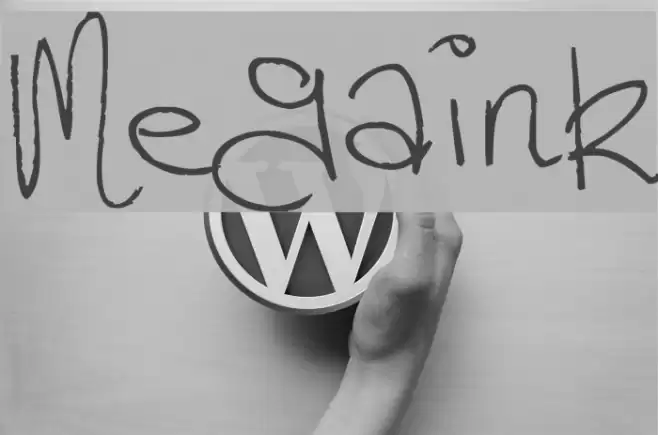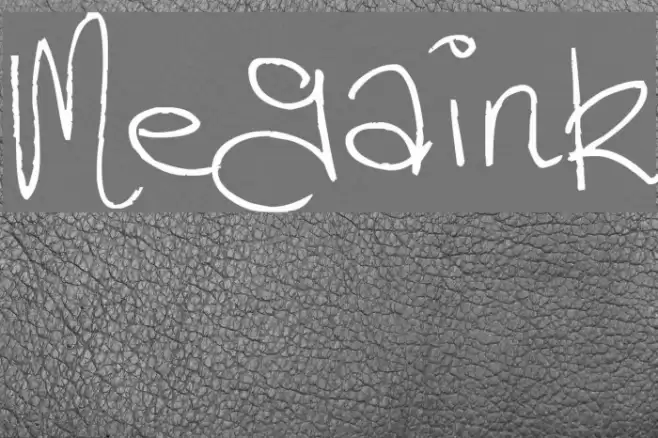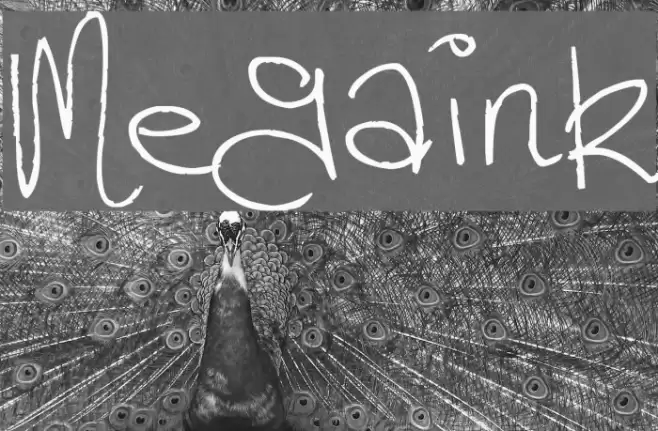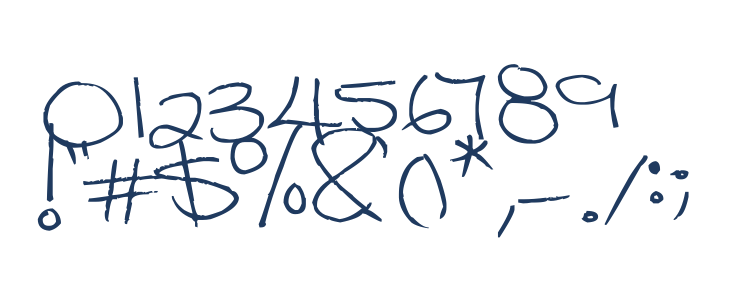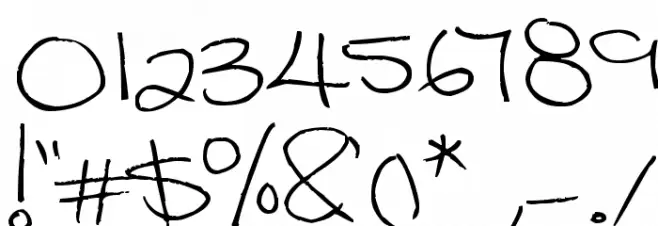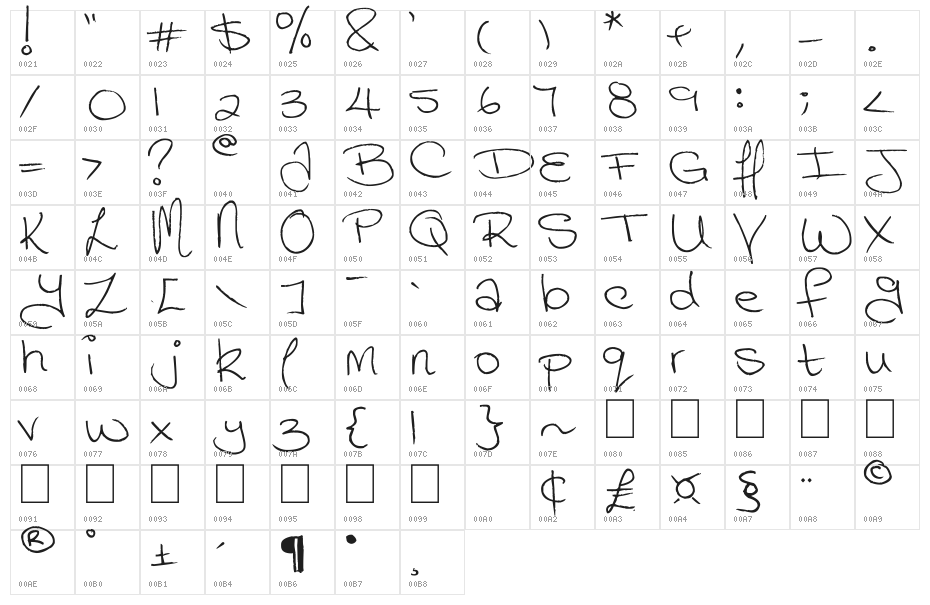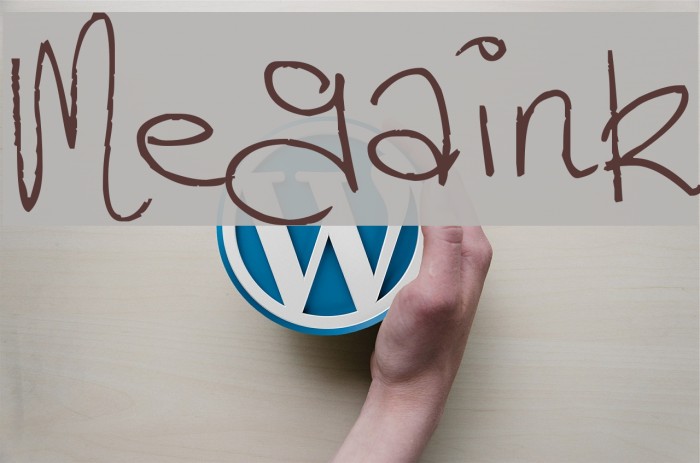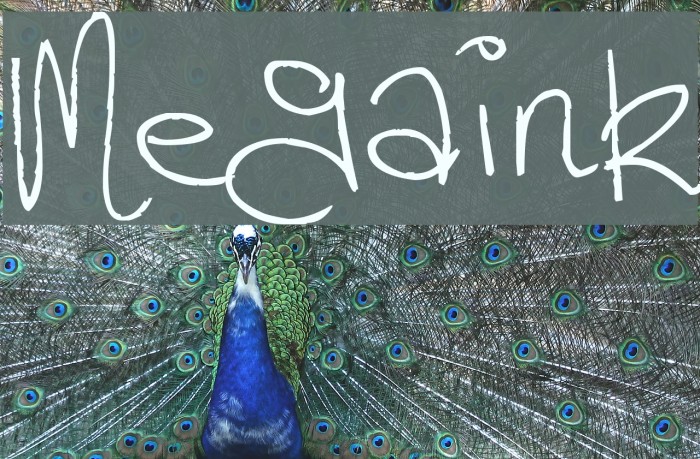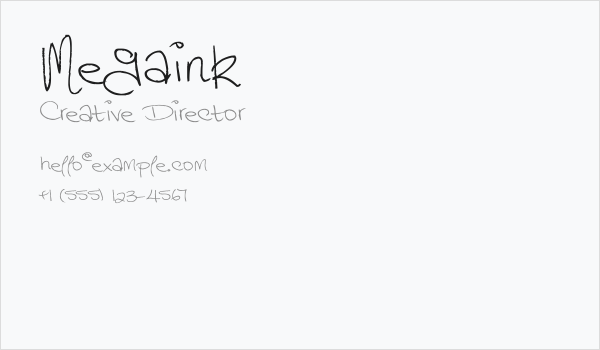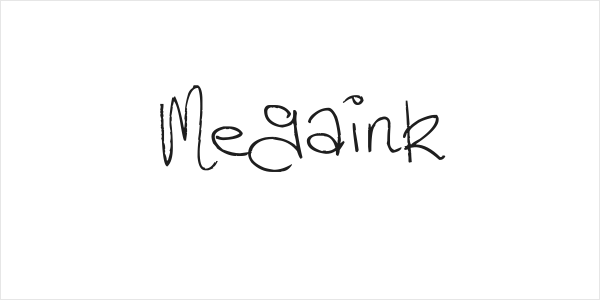
Megaink Font
Megaink Description
This font exudes a playful and casual handwritten style, characterized by its fluid and slightly irregular strokes. The letters have a natural, free-flowing appearance, reminiscent of quick, informal handwriting. The uppercase and lowercase letters maintain a consistent style, with rounded edges and a slight tilt, adding to the relaxed feel. The numerals and special characters follow the same aesthetic, ensuring a cohesive look across all glyphs. This font is ideal for projects that require a personal touch, such as invitations, greeting cards, or creative branding.
A playful, casual handwritten font with fluid, irregular strokes from Handwritten fonts.
- Proposed Projects: Ideal for invitations, greeting cards, creative branding, and personal projects.
- Overall Style: Casual
- Use Case: Creative branding, personal projects, informal communication.